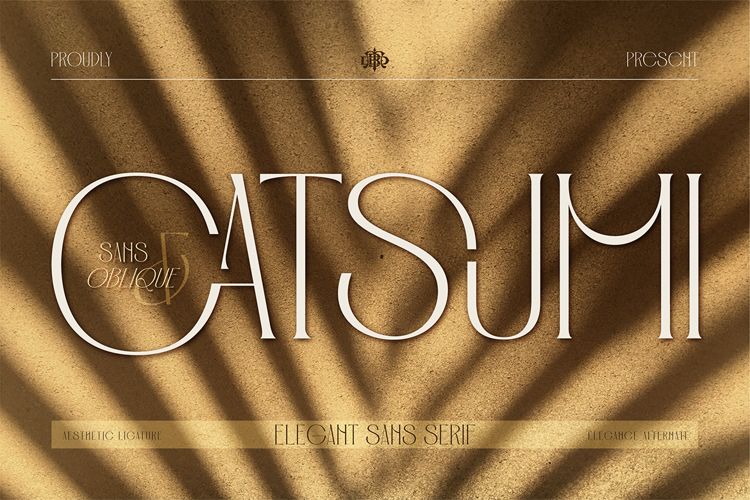
Catsumi Font
Perfect for:
- Luxury Brand Identities & Logo Design
- Fashion Magazines & Editorial Headlines
- Aesthetic Social Media Graphics & Moodboards
- High-End Cosmetics & Packaging Design
- Wedding Stationery & Event Cards